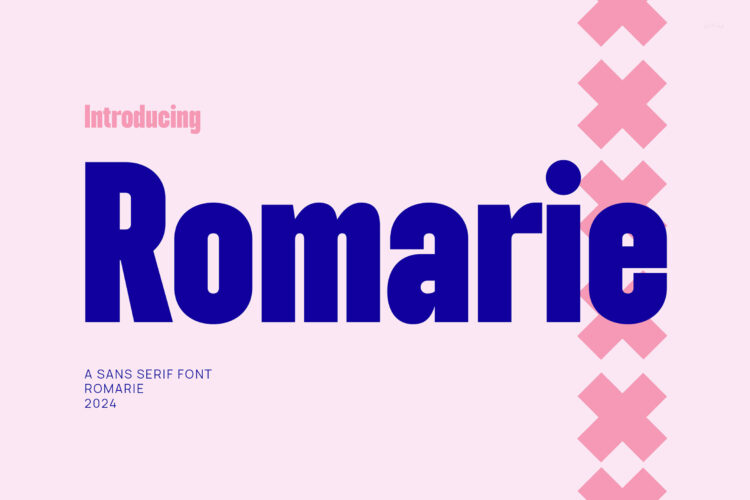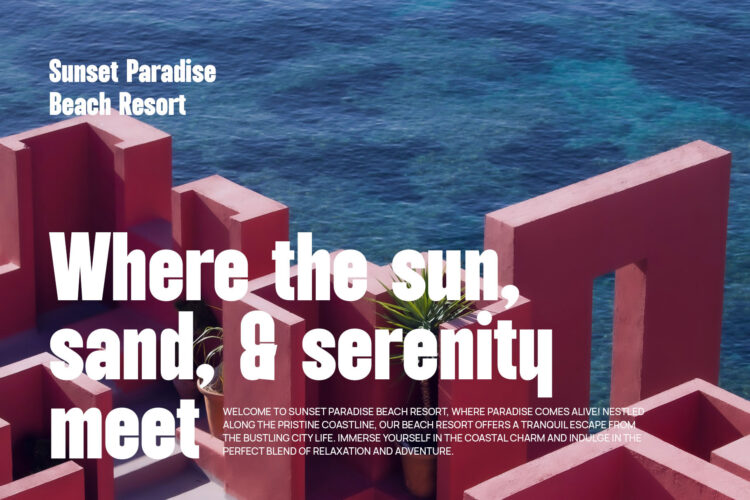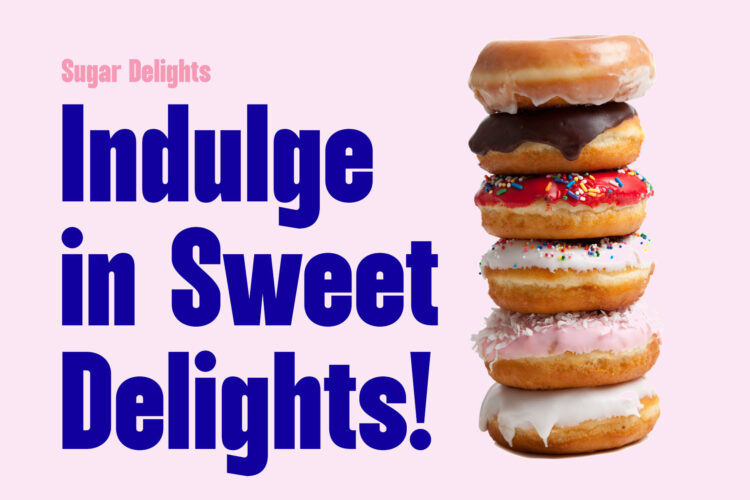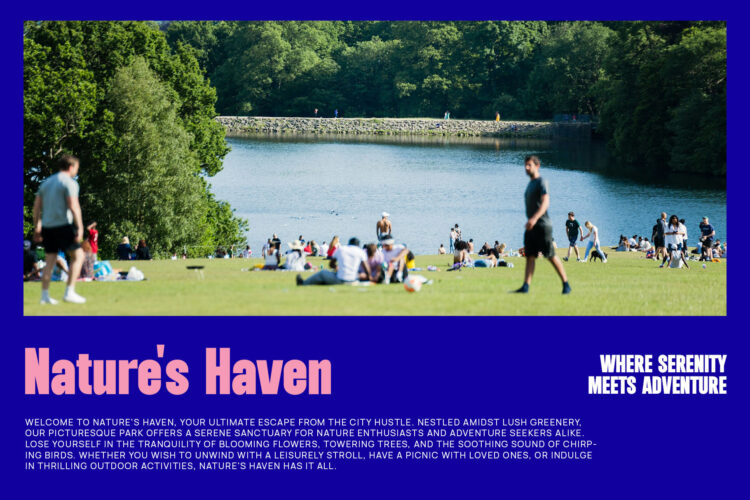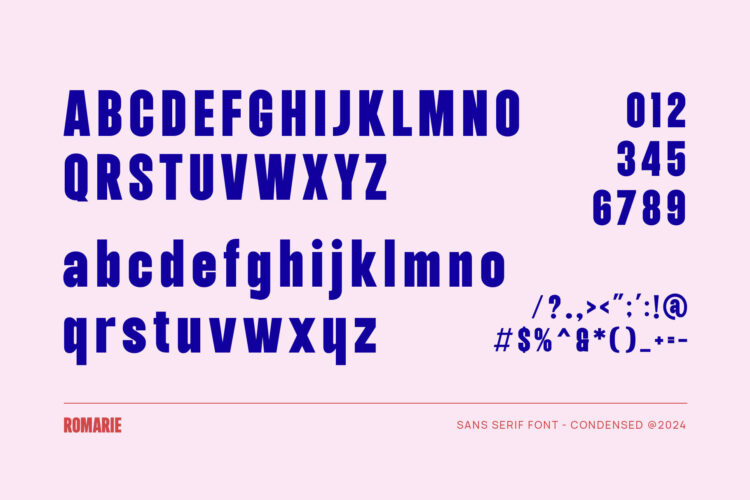
Introducing our new Romarie, modern sans serif font with elegant style this is perfect for branding, logos, invitation, magazines, product packaging and more.
Romarie – Modern Condensed Sans Serif